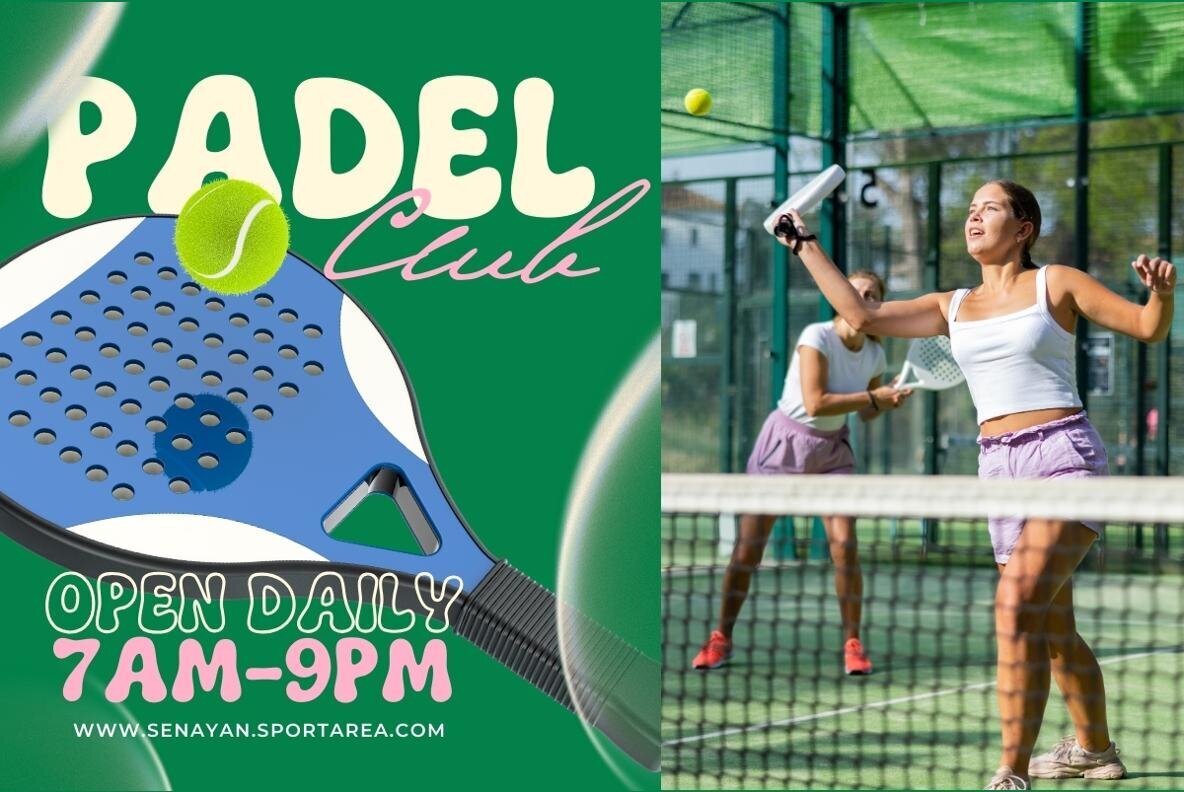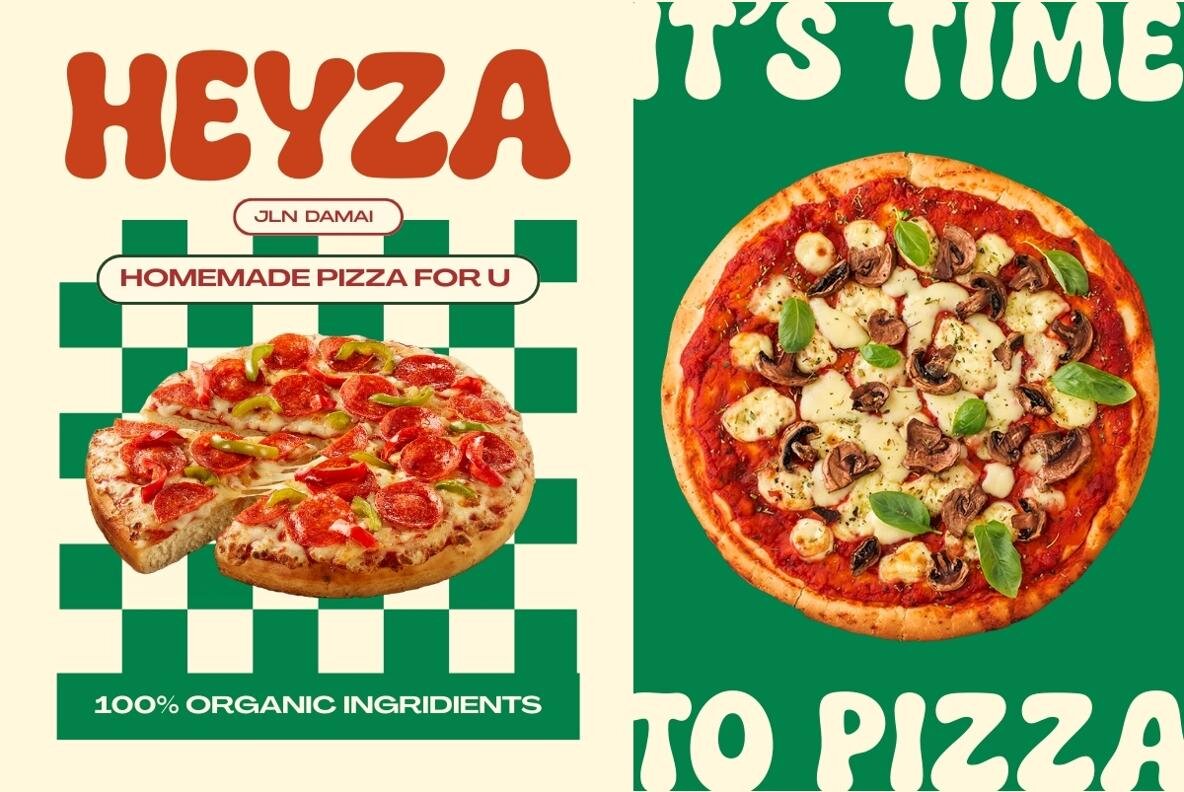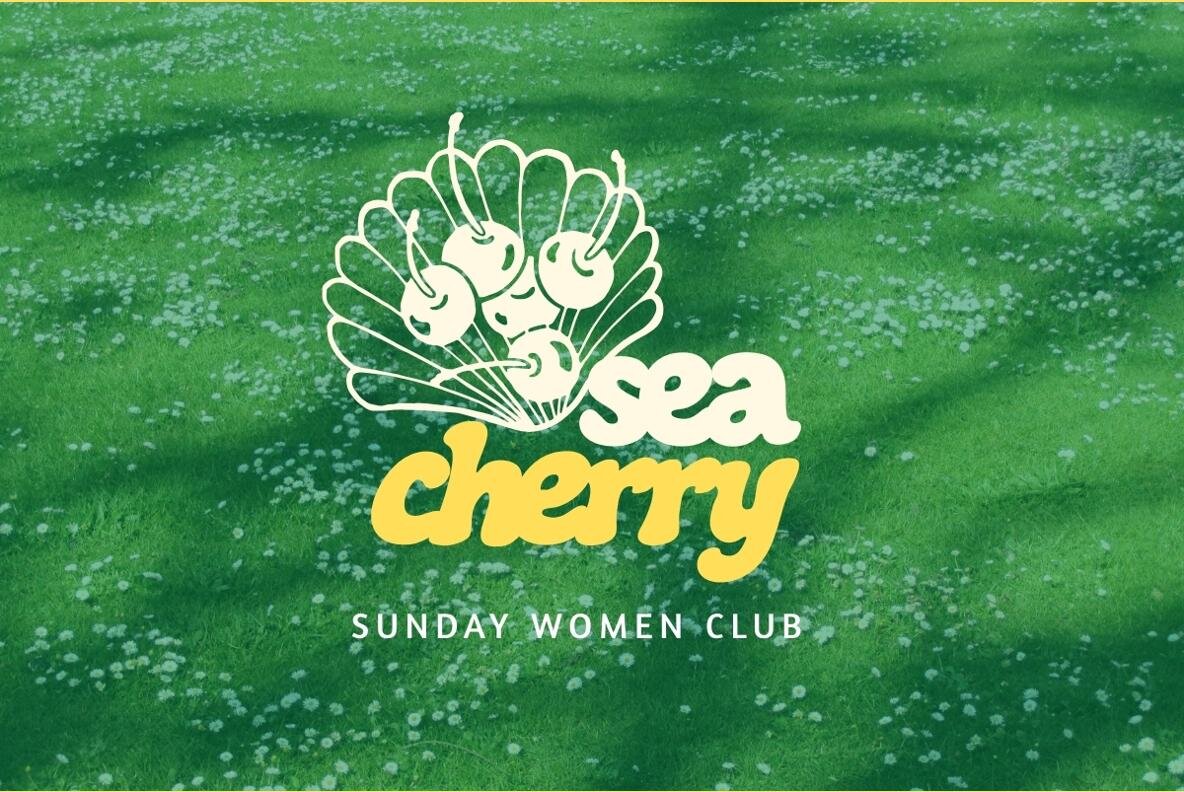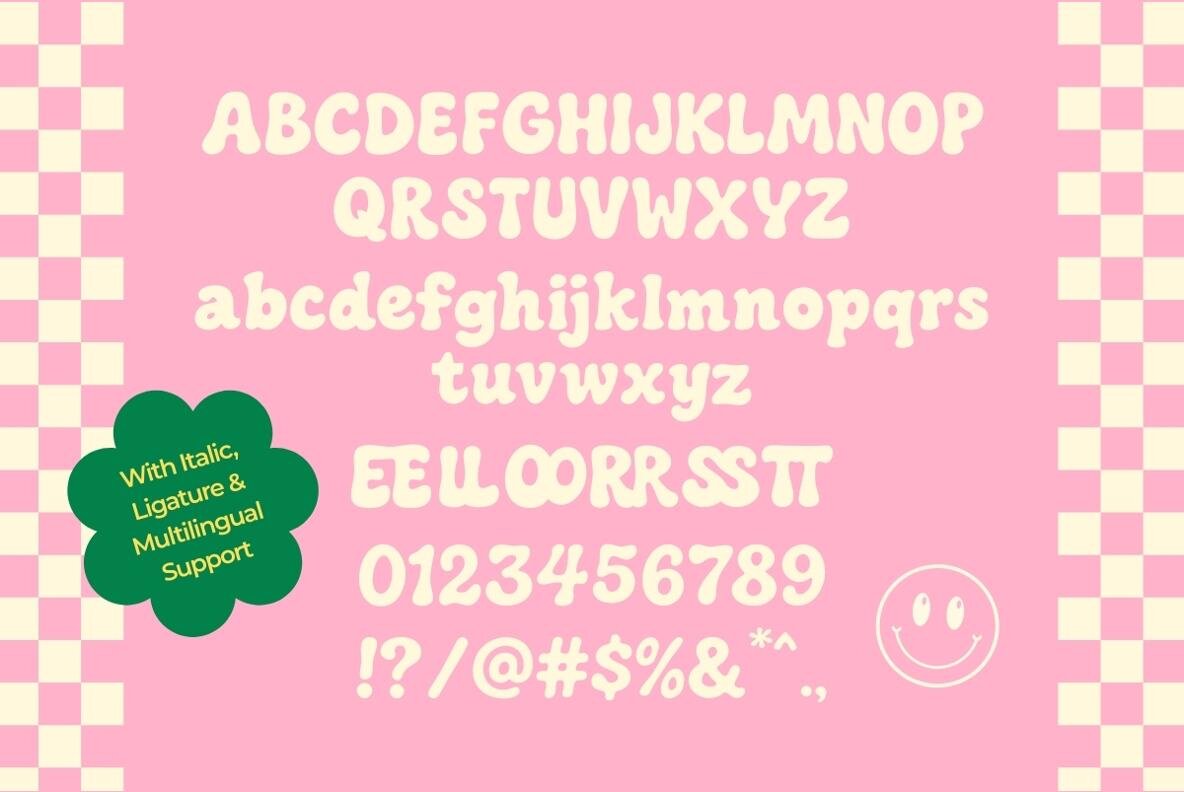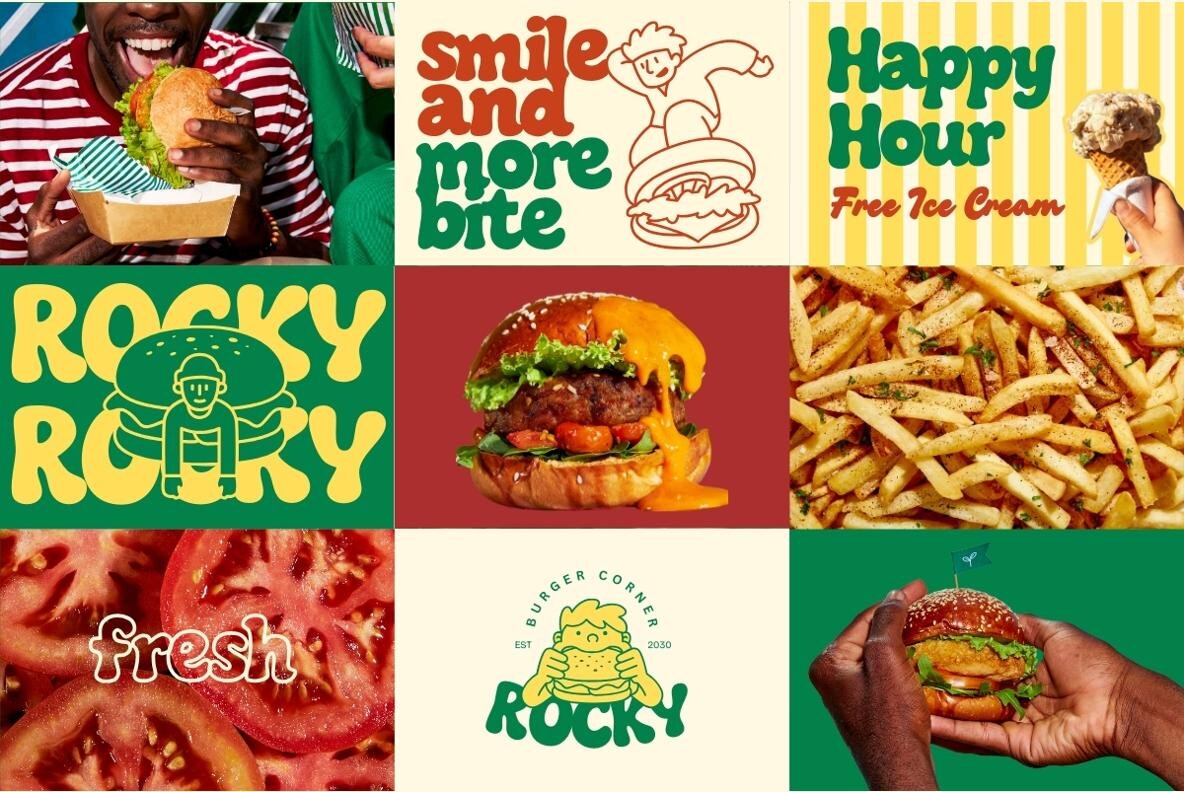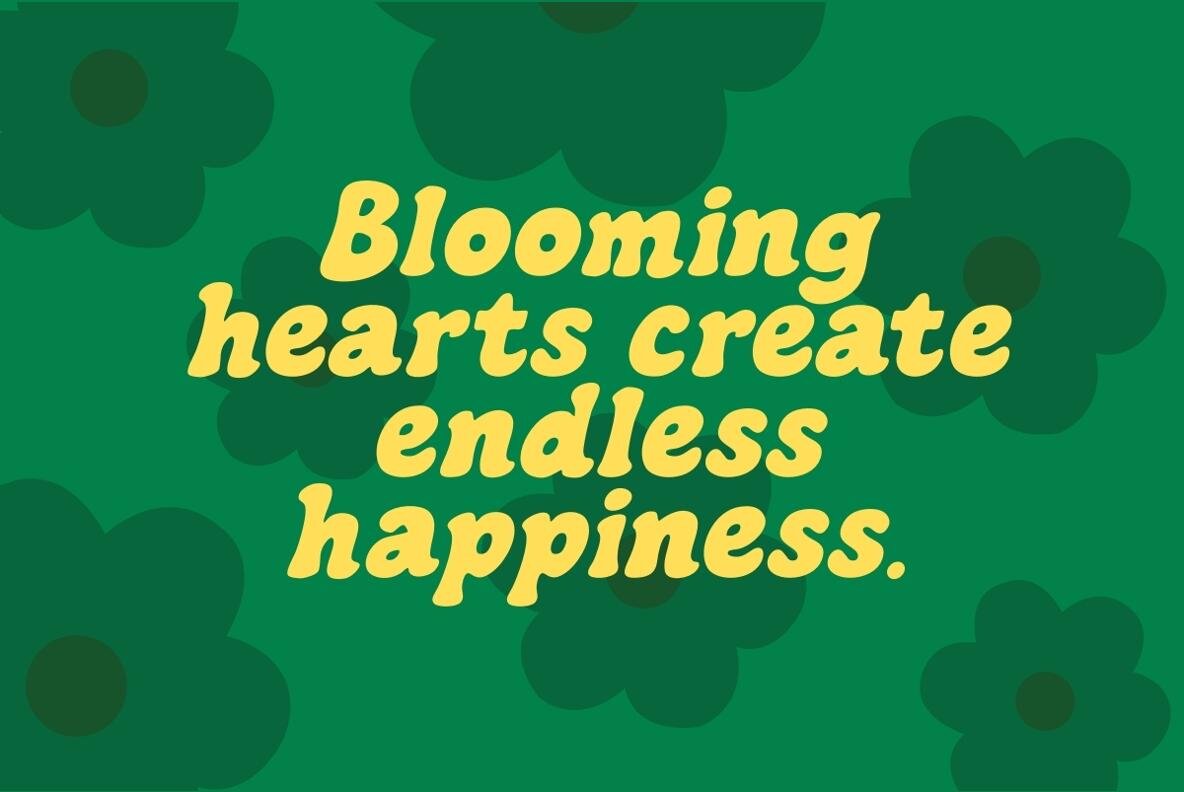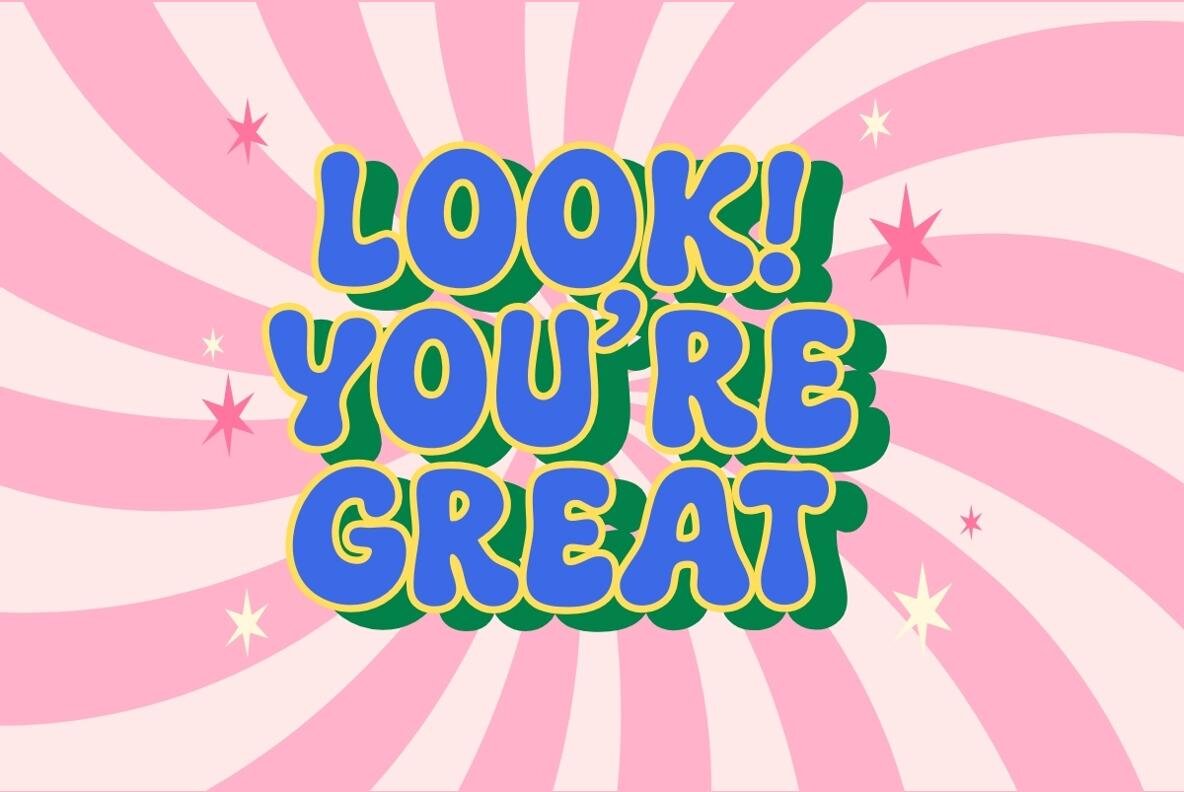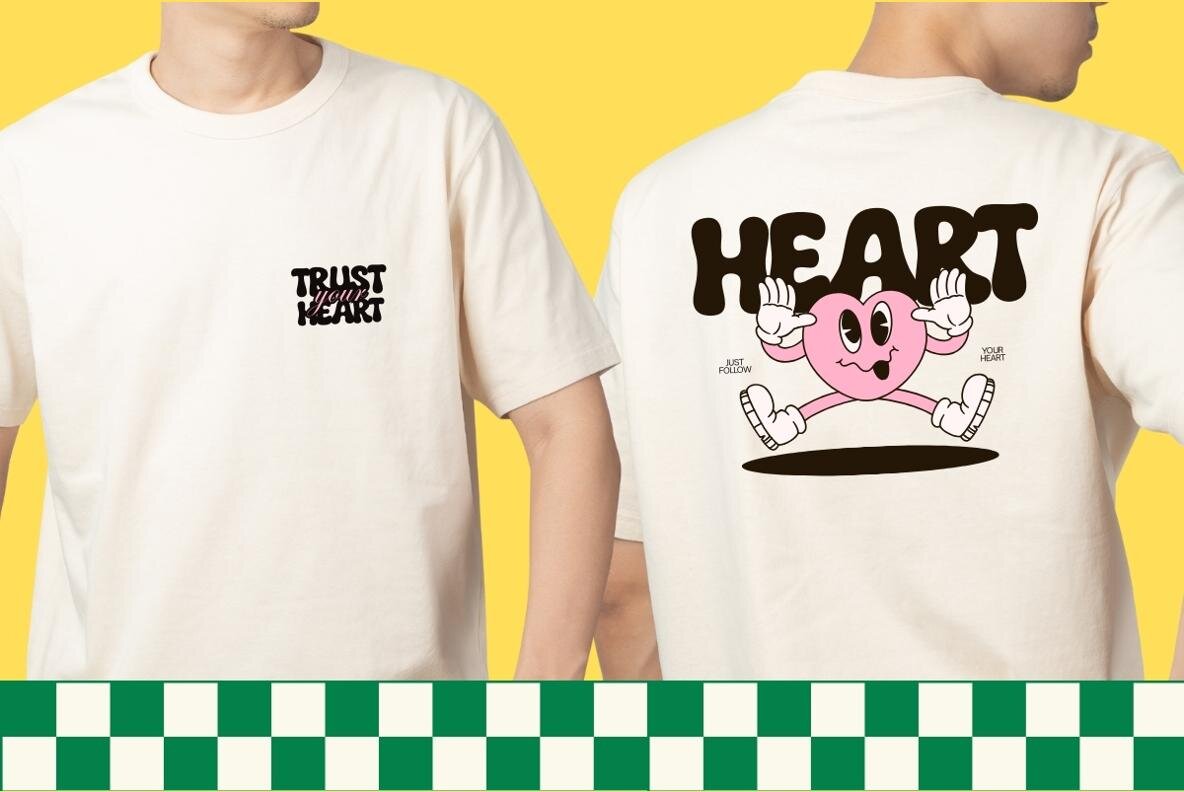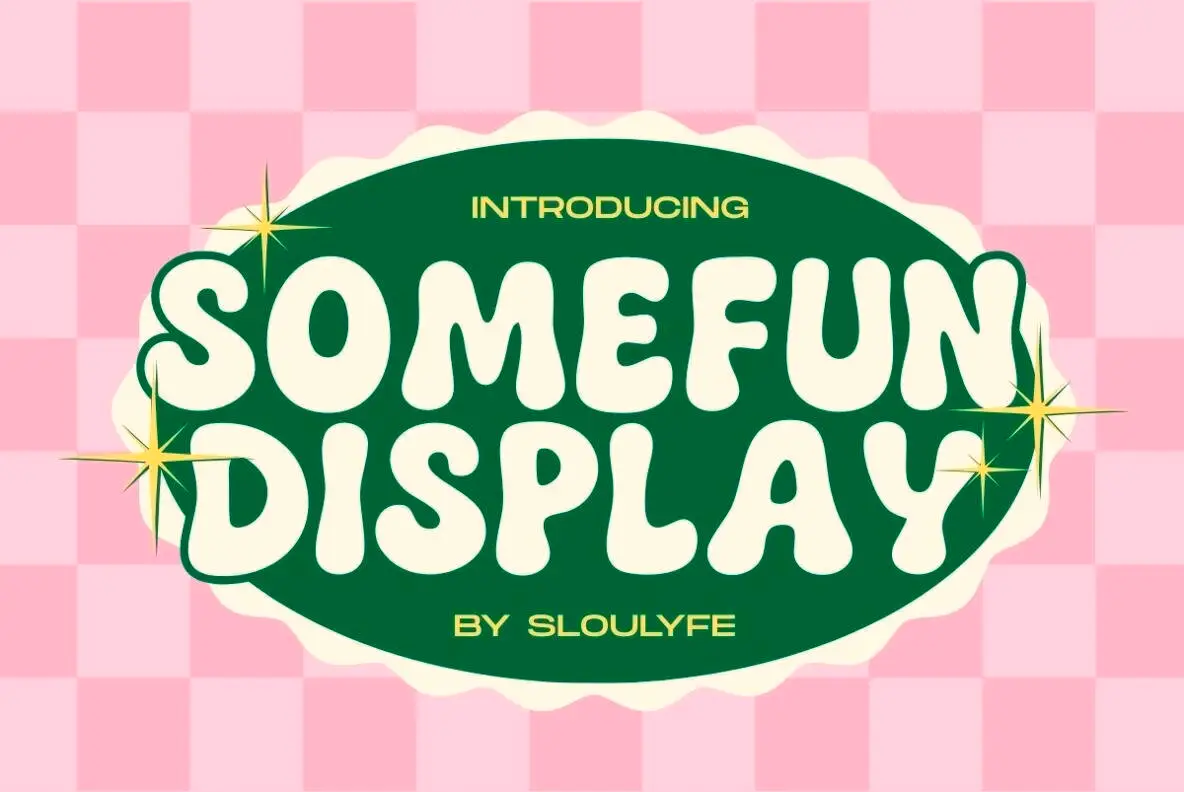
Somefun Font
SL Somefun Regular
SL Somefun Italic
Meet Somefun, a delightful and bubbly display font crafted to infuse your projects with happiness and charm. With its chunky, rounded shapes and a groovy retro vibe, Somefun creates a playful and friendly atmosphere. Perfect for posters, children's projects, packaging, or any creation that demands a cheerful pop. Its simplicity and boldness ensure your designs remain light-hearted while making a strong visual impact.Somefun: The Joyful Display Font